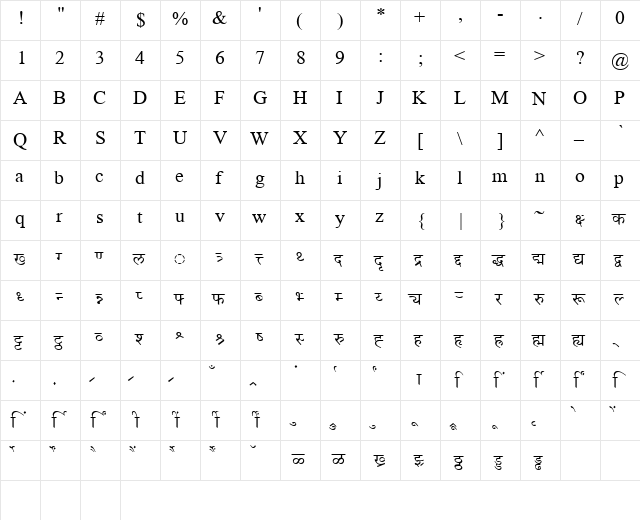
DVB-TTSurekhEN Normal
Design Context for DVB-TTSurekhEN Typeface
DVB-TTSurekhEN takes a measured approach to typography — its balanced proportions and neutral character make it a reliable workhorse for both digital and print work.